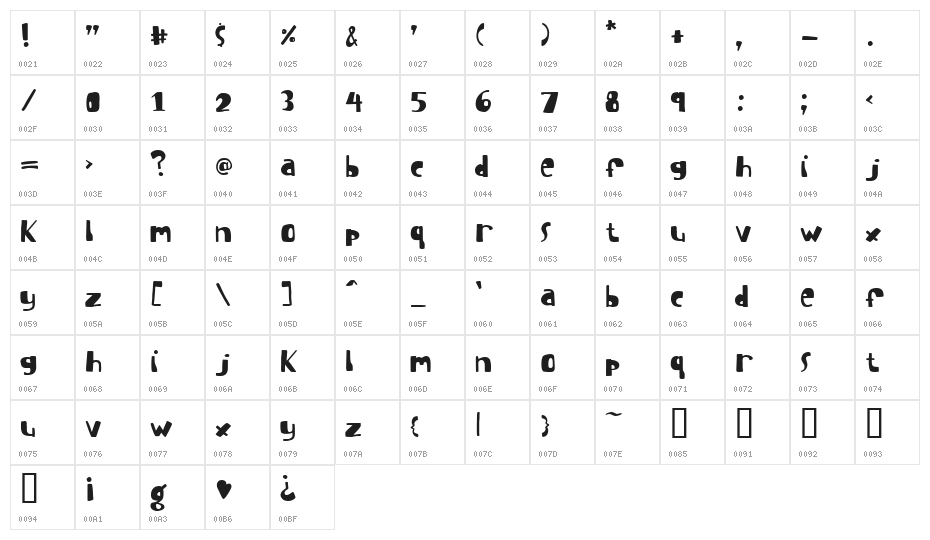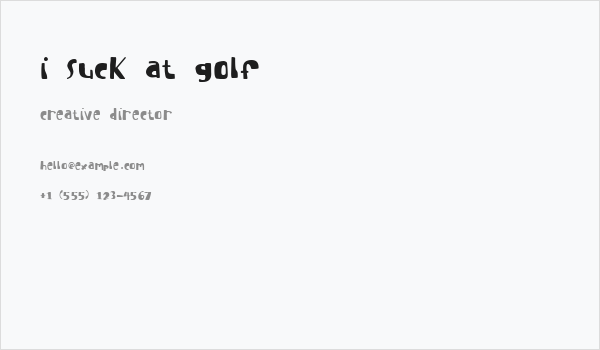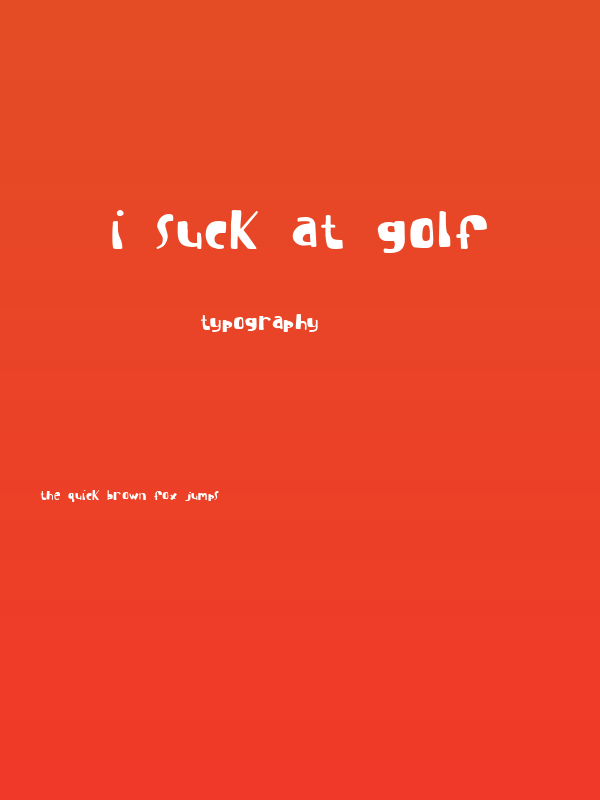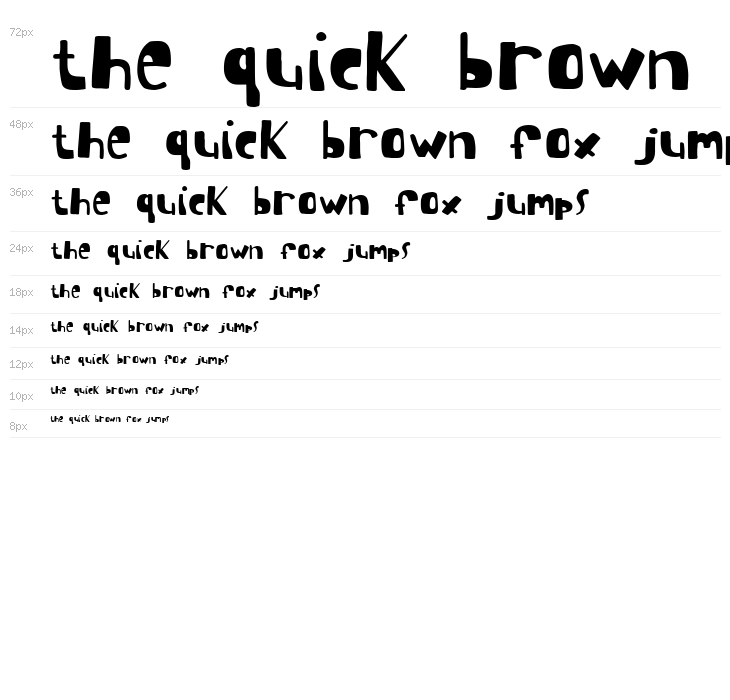
I suck at golf Font
I suck at golf Description
This playful and quirky font features a bold and irregular design, with each character exhibiting a unique and whimsical shape. The letters have a hand-drawn appearance, adding a sense of fun and creativity. The strokes are thick and uneven, giving the font a lively and dynamic feel. The characters are slightly rounded, contributing to a friendly and approachable style. This font is perfect for projects that aim to convey a sense of humor or playfulness, making it ideal for children's books, comic strips, or casual branding.
| Proposed Projects | Children's books, comic strips, casual branding, playful posters. |